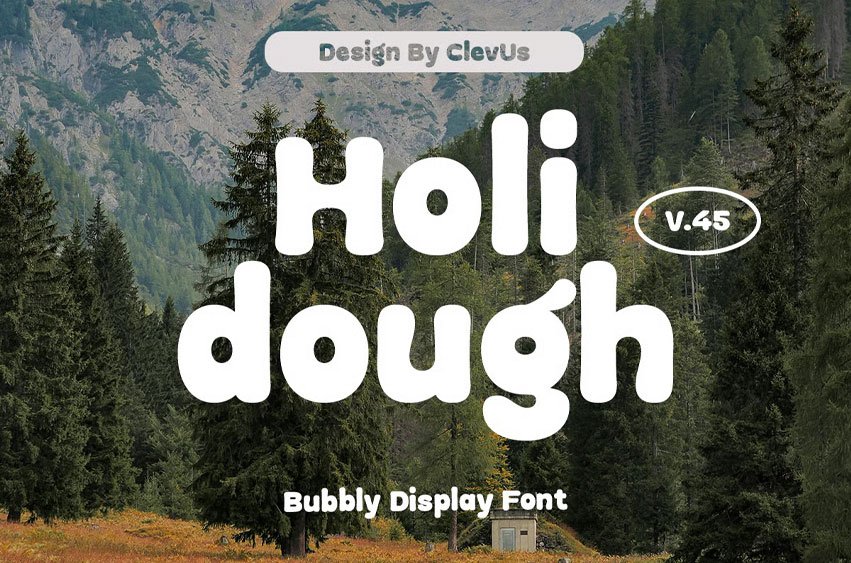
Holidough Rounded Font is a plump and happy typeface that brings smiles wherever it goes. Its rounded edges and soft forms make every word feel cozy, friendly, and full of charm ideal for packaging, posters, or any design that craves joy.
Comes with alternatives and ligatures, helps to create stunning logos, quotes, posts, blog posts. branding projects, magazine imagery, wedding invitations, and much more.